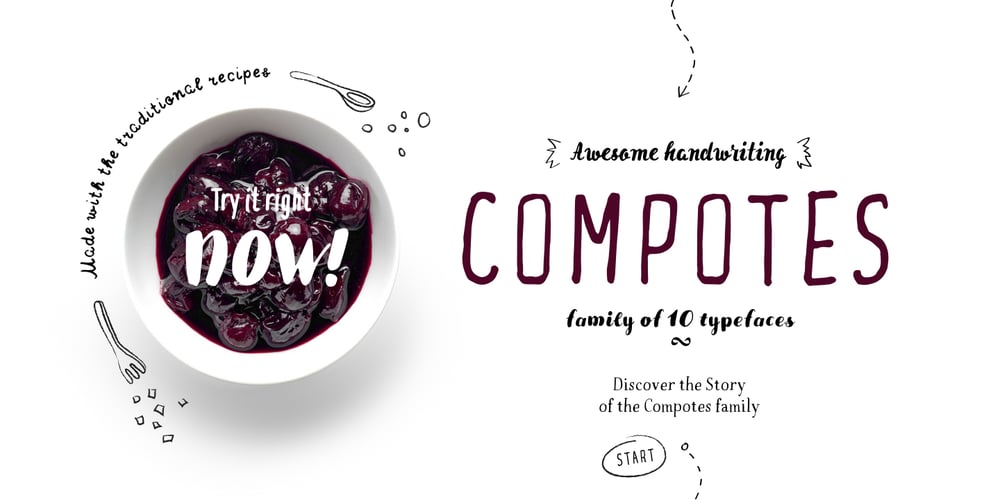
Compotes
Compotes font
Compotes Font Family was designed by TypeType Team and published by Piñata. Compotes contains 10 styles and family package options. “Fontfamily “Compotes” was created with love and with care about small collections of “hand-made” fonts. We have created a perfect product for the decoration of home design, small barber’s shops, cafes and bakeries. This fonts is ideally combined with any type of design, for example, you can use them on labels of homemade jams and pickles and “Compotes” perfectly can be used in logos and in the press. We did 5 main main typefaces by alphabetical list: A – Apple, B – Basilic, C – Citro, D – Dew, E – Espresso In addition, we have developed five “supplements” for each font!